Choosing the right modern sans serif fonts for fashion and lifestyle branding can help a brand feel cleaner, more current, and easier to recognize. Typography often appears everywhere, from logos and packaging to websites, campaign graphics, labels, and social media. Because of that, one font choice can influence the entire visual identity.
Fashion and lifestyle brands usually need a balance between style and flexibility. A typeface should look distinctive in a logo, but it should also stay readable in headlines, product names, and digital layouts. Modern sans serif fonts work well because they can feel minimal, premium, bold, or editorial depending on how they are used.
Why Modern Sans Serif Fonts Work for Fashion Branding
Sans serif fonts are often associated with clean shapes and straightforward letterforms. That makes them useful for brands that want a modern appearance without adding too much decoration.
In fashion branding, this simplicity gives photography, products, and campaign visuals more room to stand out. A strong sans serif can support a bold campaign image without competing with it.
Lifestyle brands also benefit from versatility. The same typeface can often move from packaging to website headers and social content while keeping the identity consistent.
Best Modern Sans Serif Fonts for Fashion and Lifestyle Branding
The following fonts can support different directions, from refined fashion labels to youthful lifestyle brands.
1. Gavoline
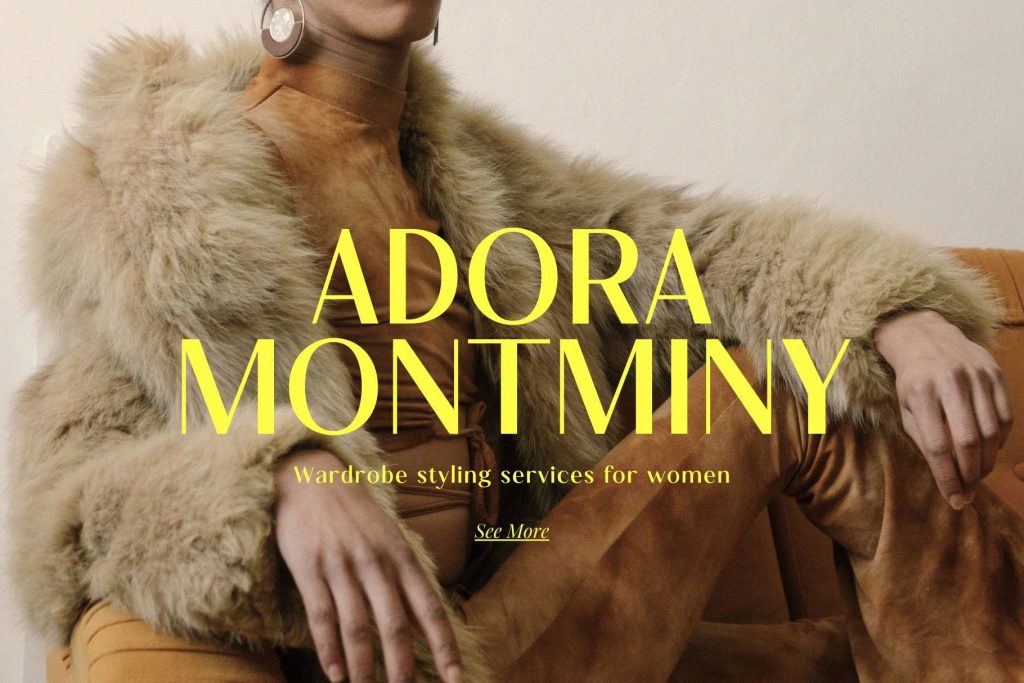
Gavoline works well for branding that needs a clean but stylish personality. Its modern look can support fashion labels, beauty brands, product packaging, and editorial-inspired websites.
2. Gorestka
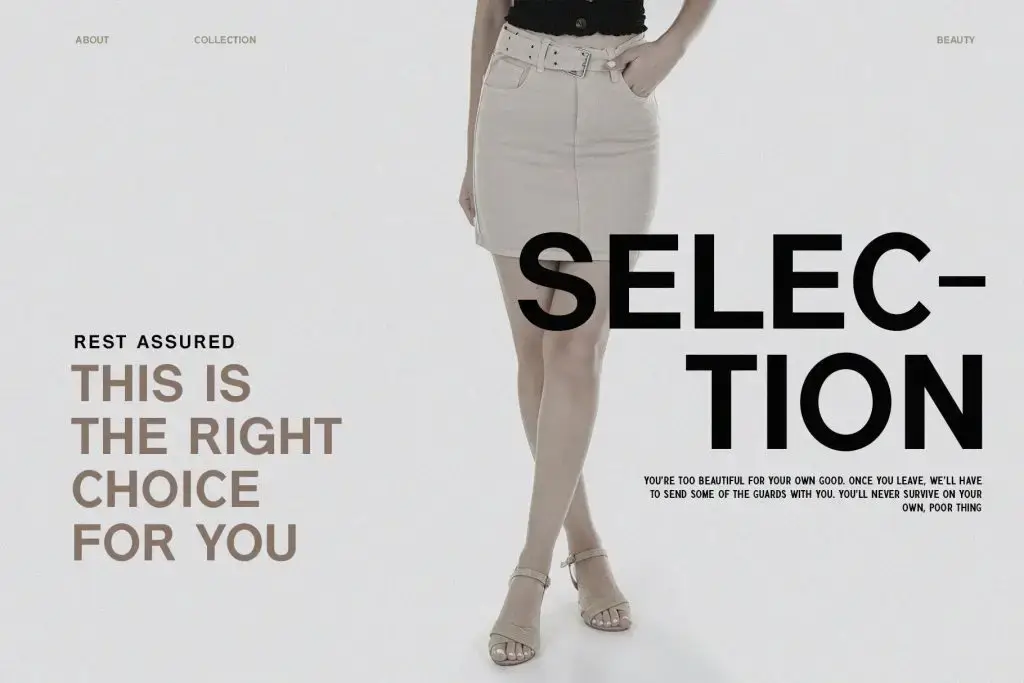
Gorestka is a modern sans-serif font that brings a clean and sophisticated look to fashion branding. Its neat, refined letterforms work beautifully for luxury clothing labels, lookbooks, fashion campaigns, packaging, and stylish editorial layouts.
3. Cllerista
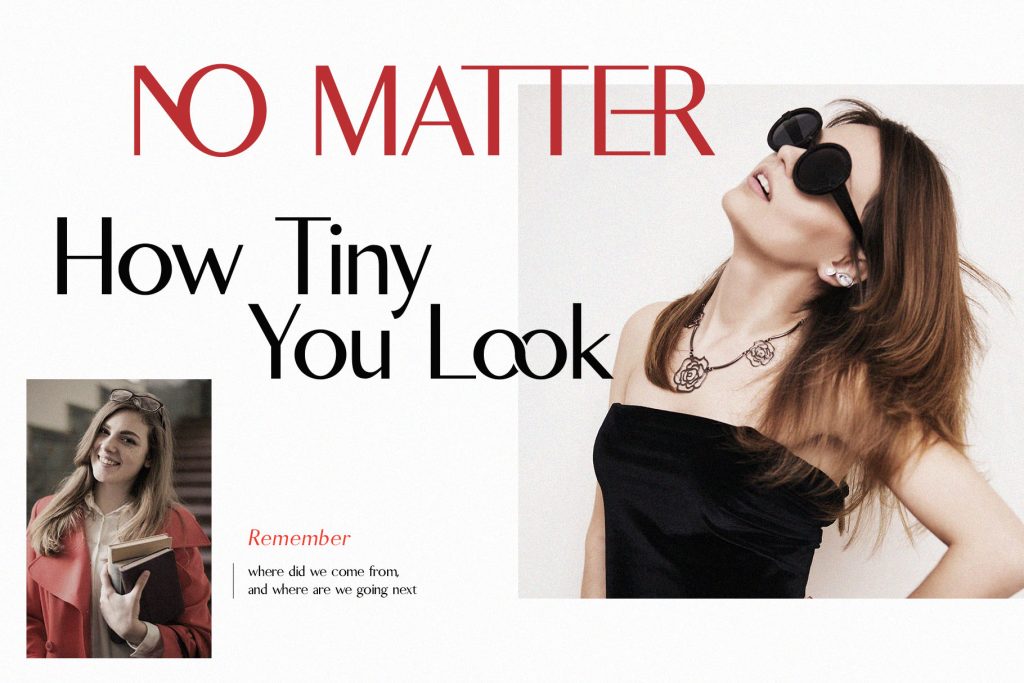
Cllerista can give fashion branding a refined and editorial quality. Its distinctive appearance suits premium campaigns, boutique labels, beauty projects, and fashion-focused digital layouts. It can be especially effective for large titles and logo treatments. For smaller supporting text, pair it with a simpler font to keep the overall composition readable.
4. Vaneska
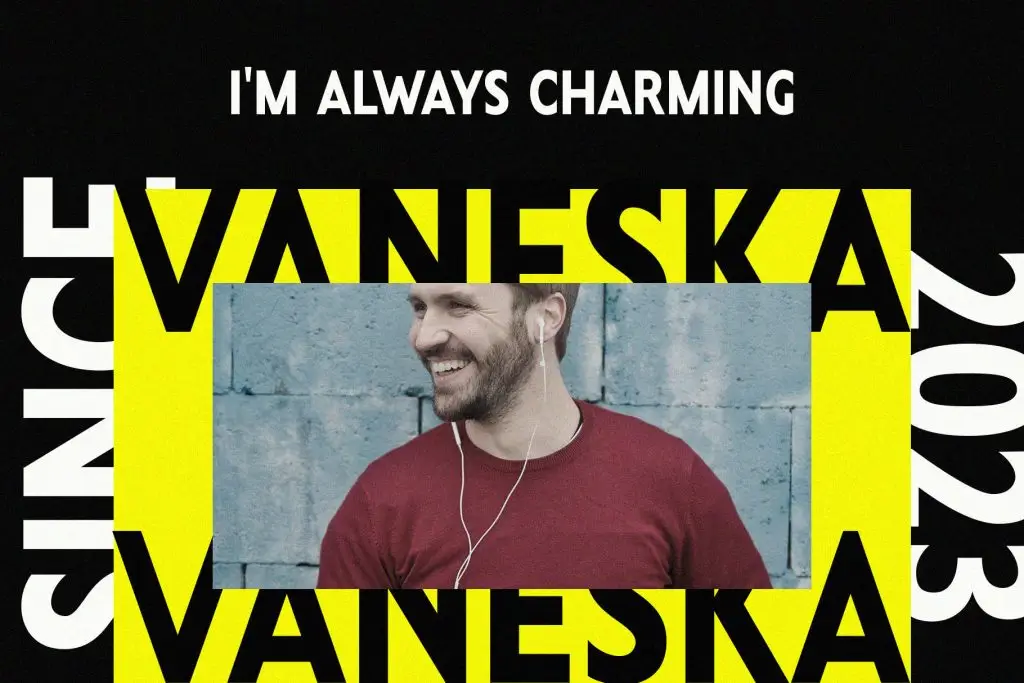
Vaneska offers a modern direction that can feel both stylish and approachable. It can work for contemporary fashion, personal care products, wellness brands, and lifestyle businesses. Use it across packaging, social media templates, and website headers to create consistency. Its clean character also makes it easier to combine with photography and product-focused layouts.
5. Signer
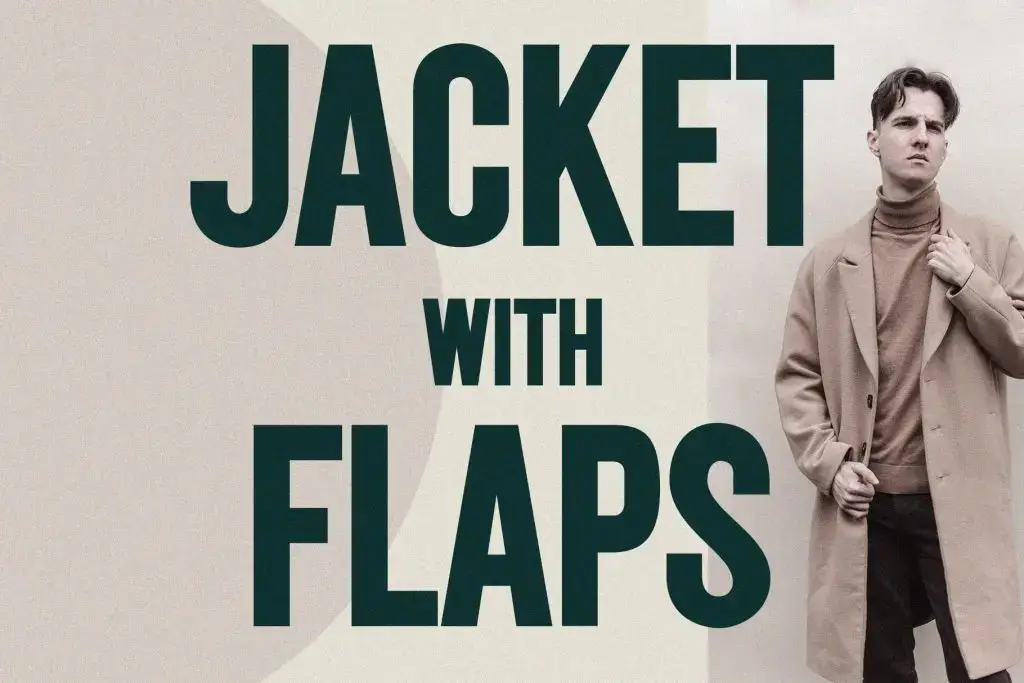
Signer is a strong option for brands that want typography with more personality while keeping the overall identity modern. It can support campaign titles, logos, packaging accents, and promotional graphics.
Use it selectively for high-impact elements. Keeping body text simple allows Signer to remain a focal point without making the branding feel too busy.
How to Choose the Right Sans Serif for Your Brand
A font should not only look attractive in isolation. It should also match the product, target customer, and overall visual direction.
Consider the Brand Personality
A premium fashion label may need a font that feels refined and spacious. Meanwhile, a streetwear brand may prefer stronger proportions and bolder typography. Lifestyle brands often sit somewhere in between. They may need typography that feels friendly enough for everyday products but polished enough to build trust. Before choosing a typeface, write down three words that describe the brand. Words such as minimal, confident, youthful, elegant, or relaxed can make the selection process easier.
Test the Font Across Different Touchpoints
A logo is only one part of branding. Test the font on product labels, shopping bags, website banners, Instagram posts, packaging, and email headers. A typeface that looks strong at 80 pixels may lose clarity at a smaller size. Likewise, a font that works on a clean white background may need adjustments when placed over photography. Testing early helps you avoid redesigning the system later.
Use Typography to Build Visual Hierarchy
Fashion and lifestyle layouts usually include several levels of information. These may include a brand name, collection title, product category, price, CTA, and supporting description.
Create Clear Size Differences
Use a larger size for the main message and smaller sizes for secondary information. This makes the design easier to scan. For example, a campaign may use Gavoline for the main collection name, while product details appear below in a more neutral supporting font.
Use Font Weight With Purpose
Bold weights can highlight headlines, offers, or product names. Regular weights are better for longer text and supporting information. Avoid making every element bold. When everything demands attention, nothing feels important.
Choose a font that matches the product and customer rather than following a trend alone. Then test it across real applications before finalizing the identity.